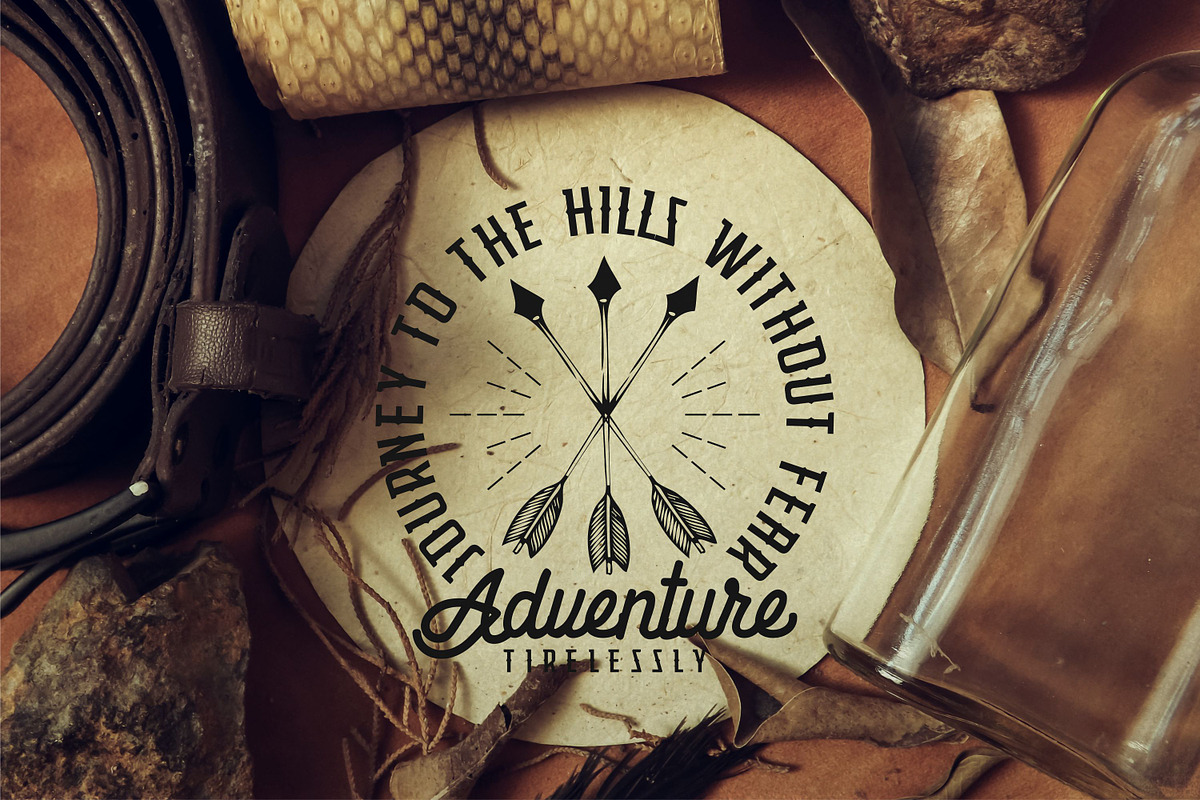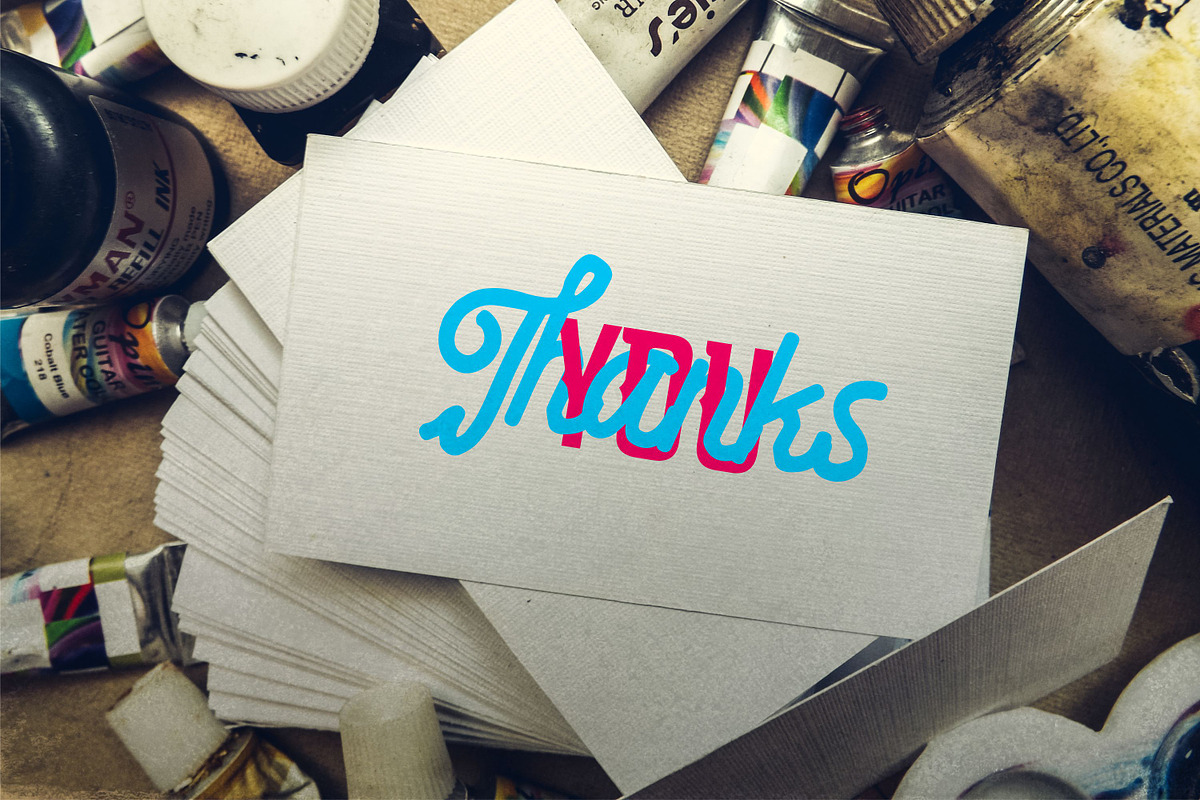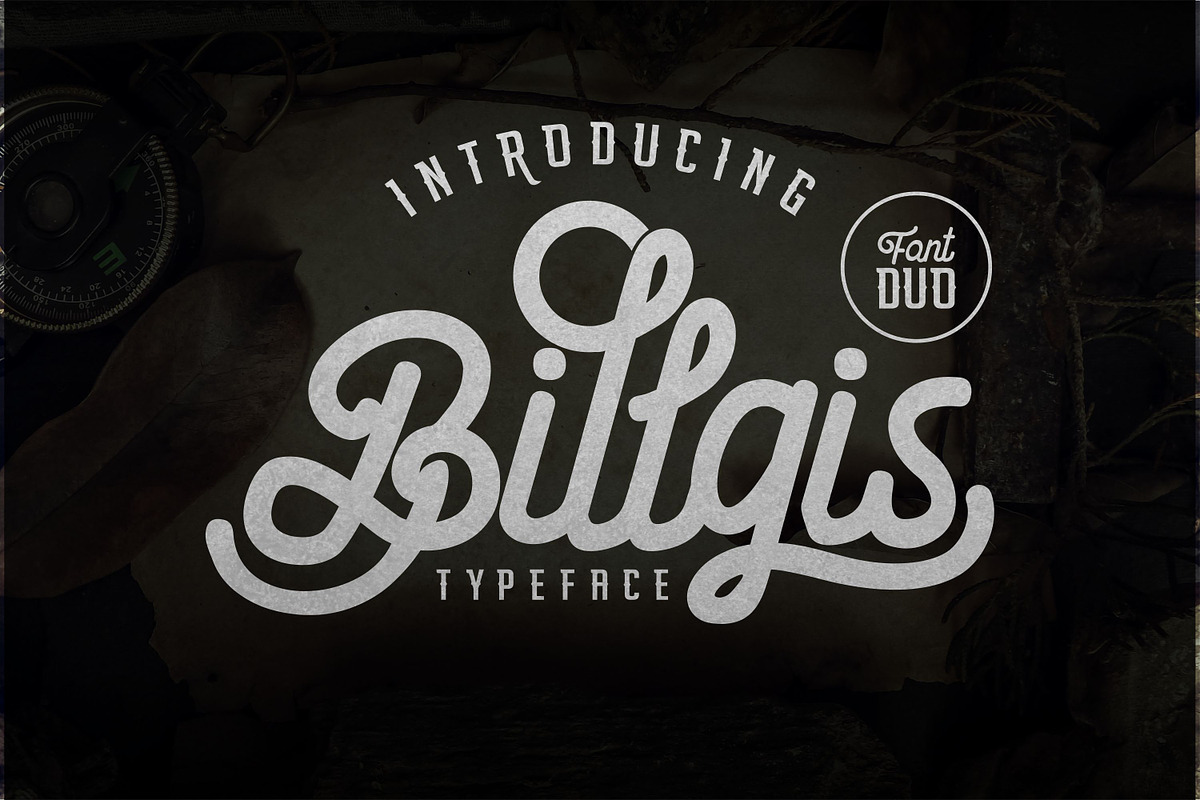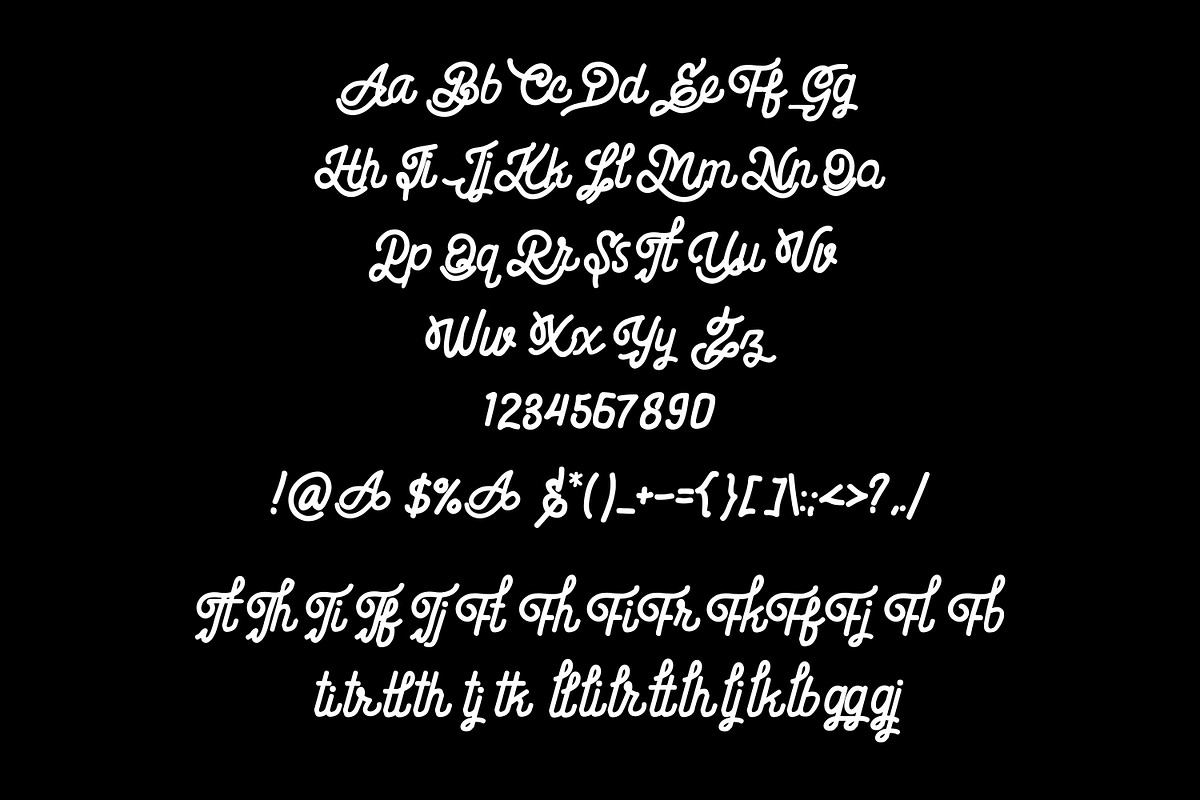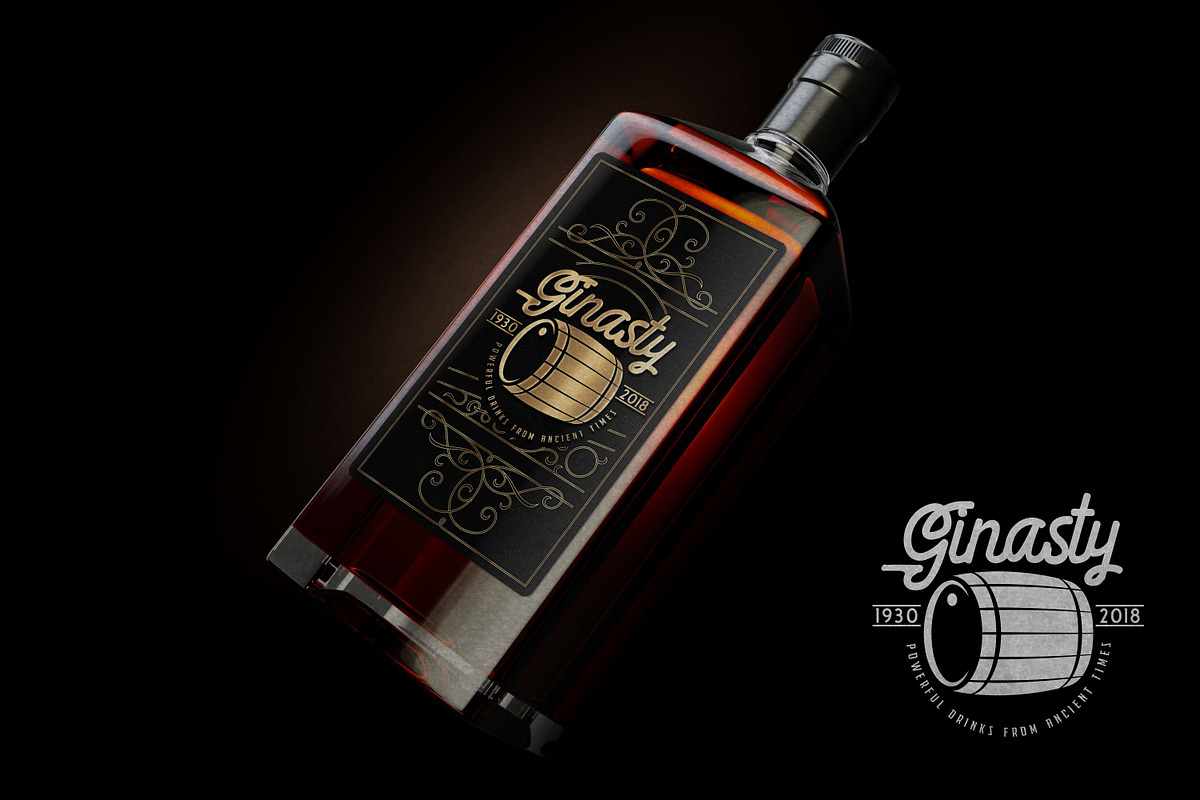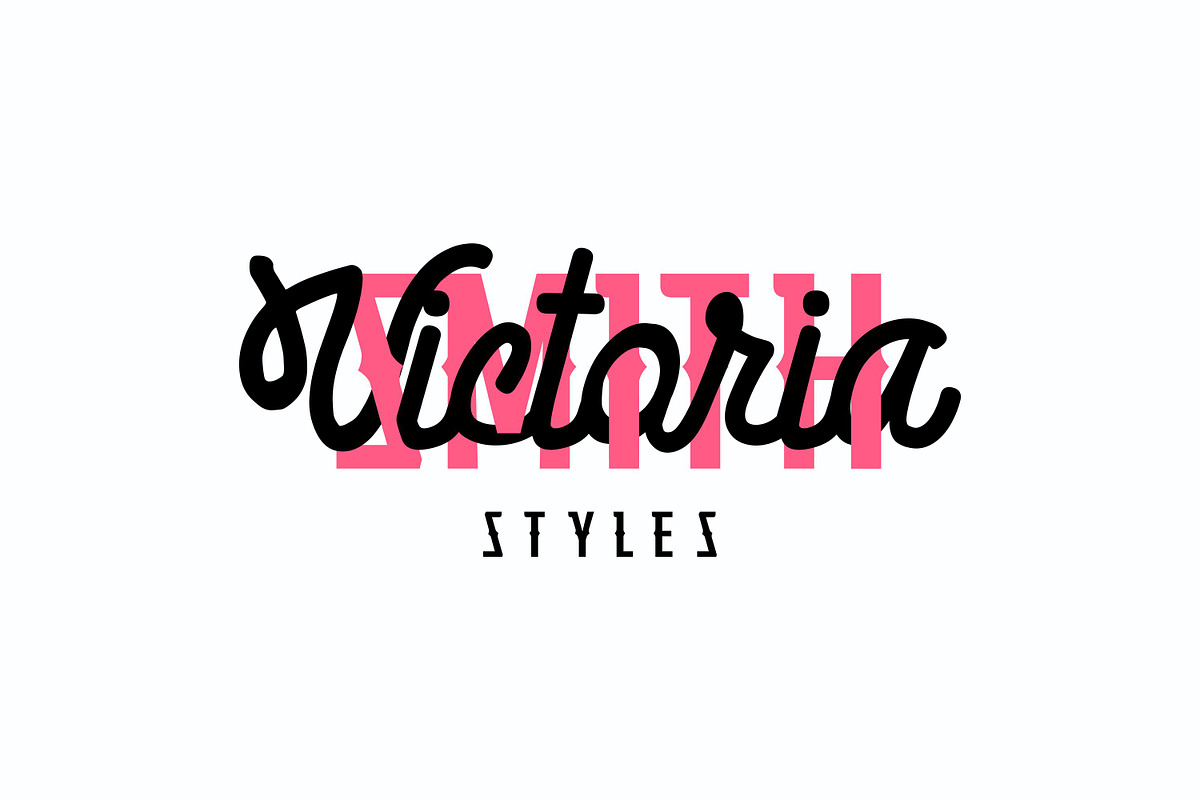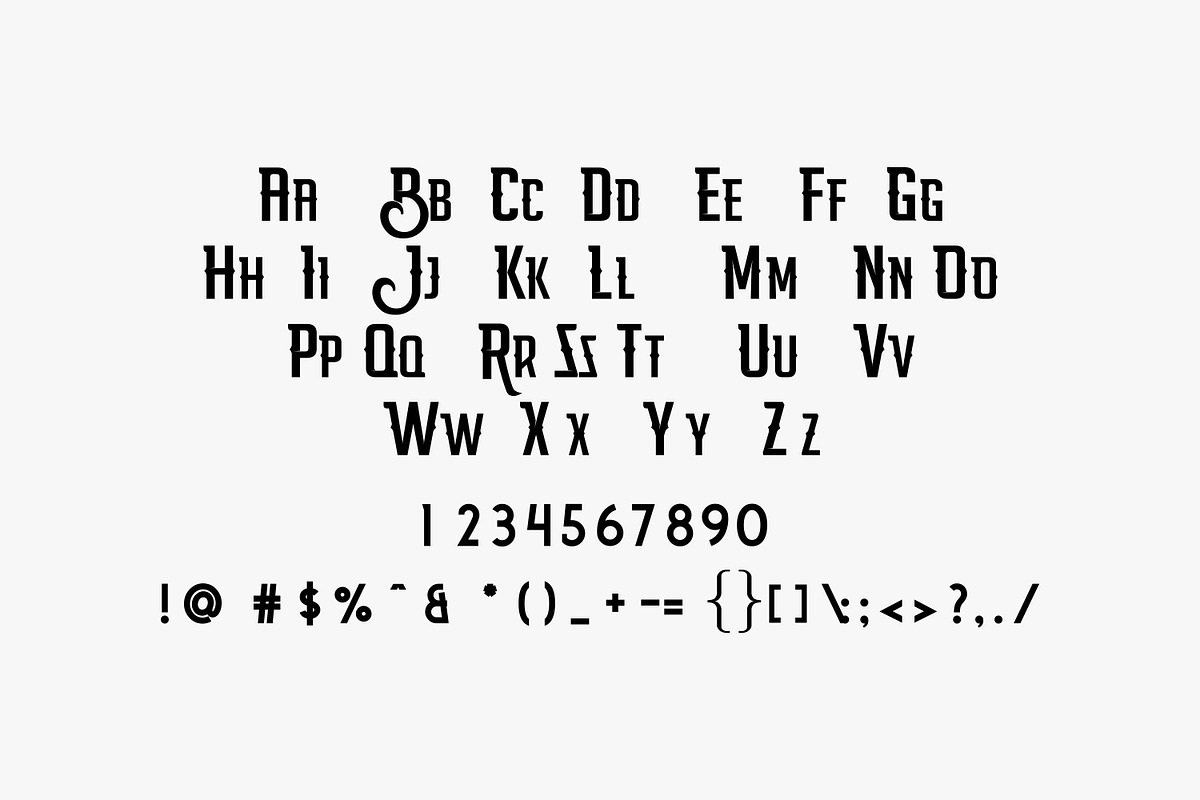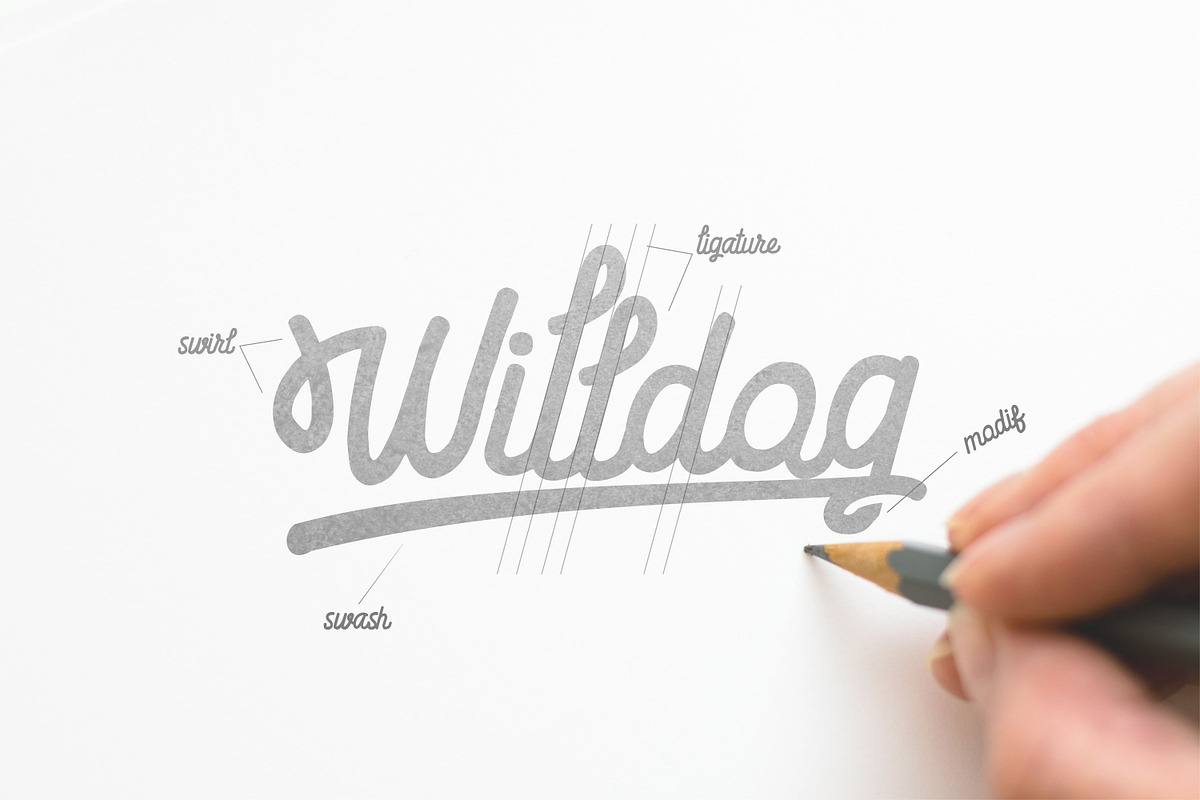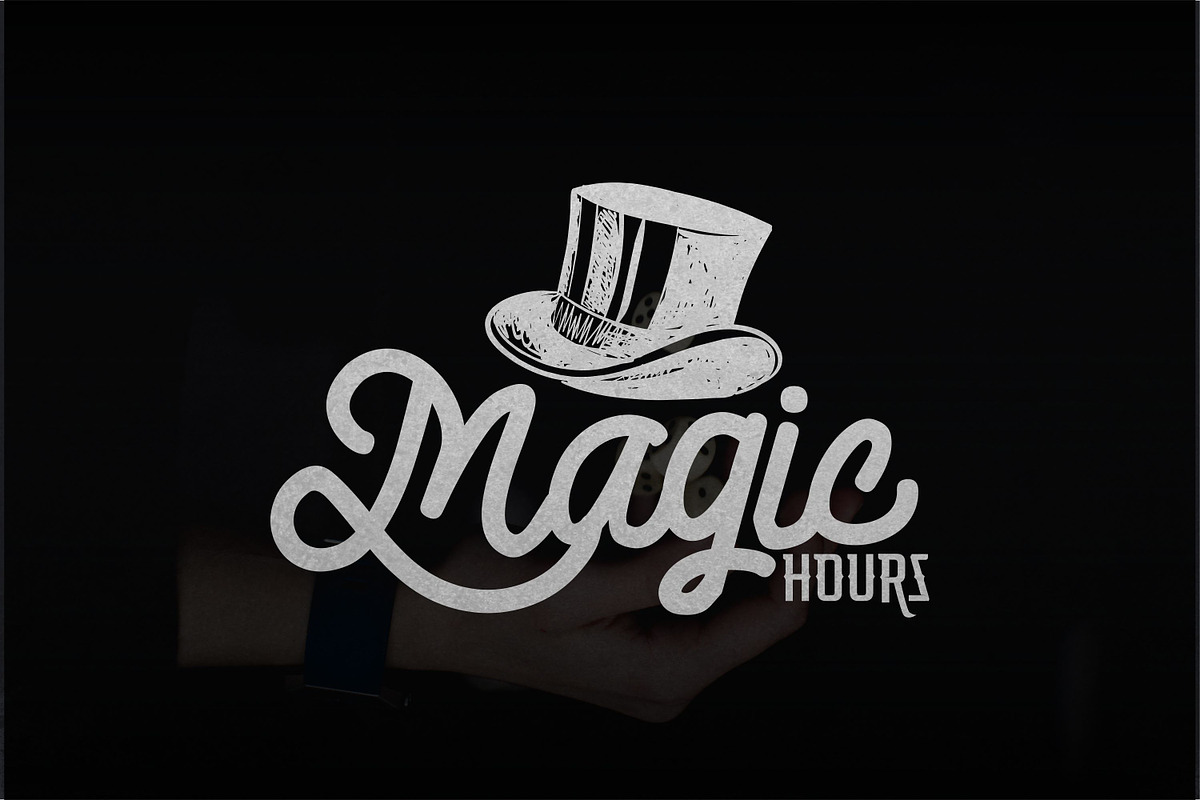
Billgis Font Duo
The Billgis is a striking font duo. Its handwritten style will give your design a natural feel. It’s perfect to make your design stand out and for adding an unique look.